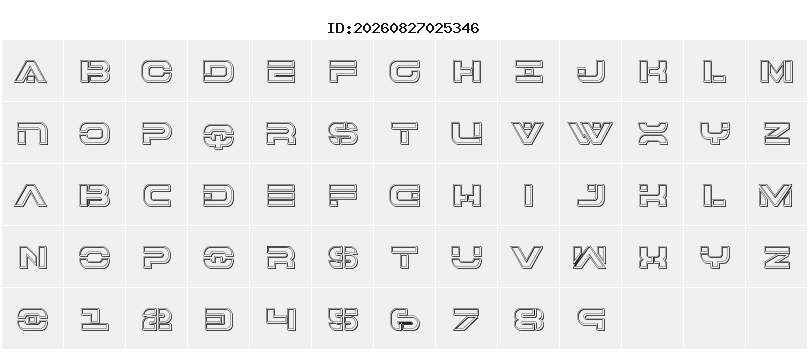
About 7th Service Engraved.ttf
7th Service Engraved.ttf is a modern, elegant sans-serif font designed for ultimate readability and visual harmony. Perfect for branding, headlines, web design, and print materials.